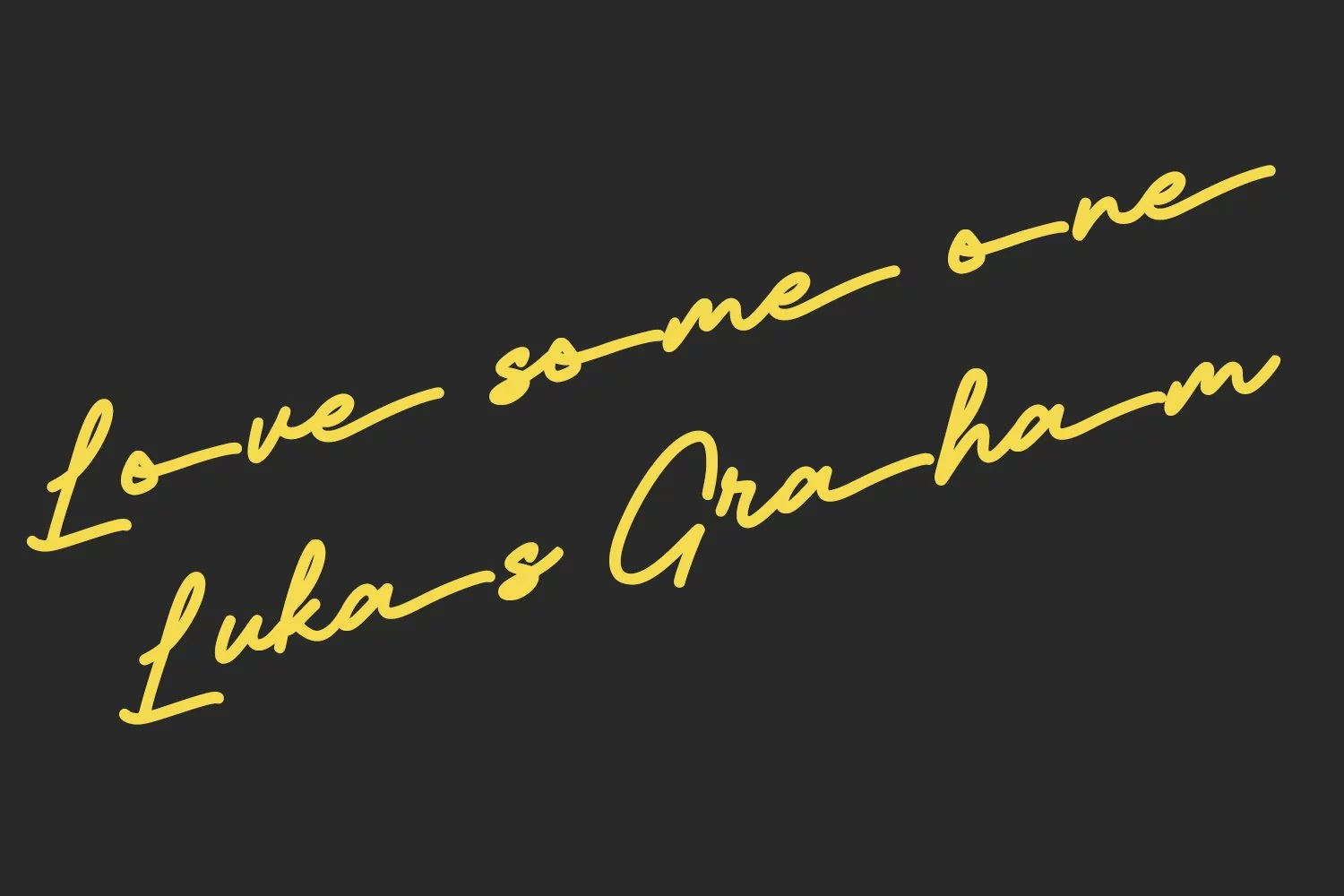
Melvio Play is a fancy handwritten script font. With bold consist mono-line stroke, fun character with a bit of ligatures and alternates. To give you an extra creative work. Melvio Play font support multilingual more than 100+ language. This font is good for logo design, Social media, Movie Titles, Books Titles, a short text even a long text letter and good for your secondary text font with sans or serif. Make a stunning work with Melvio Play font.
Melvio Play